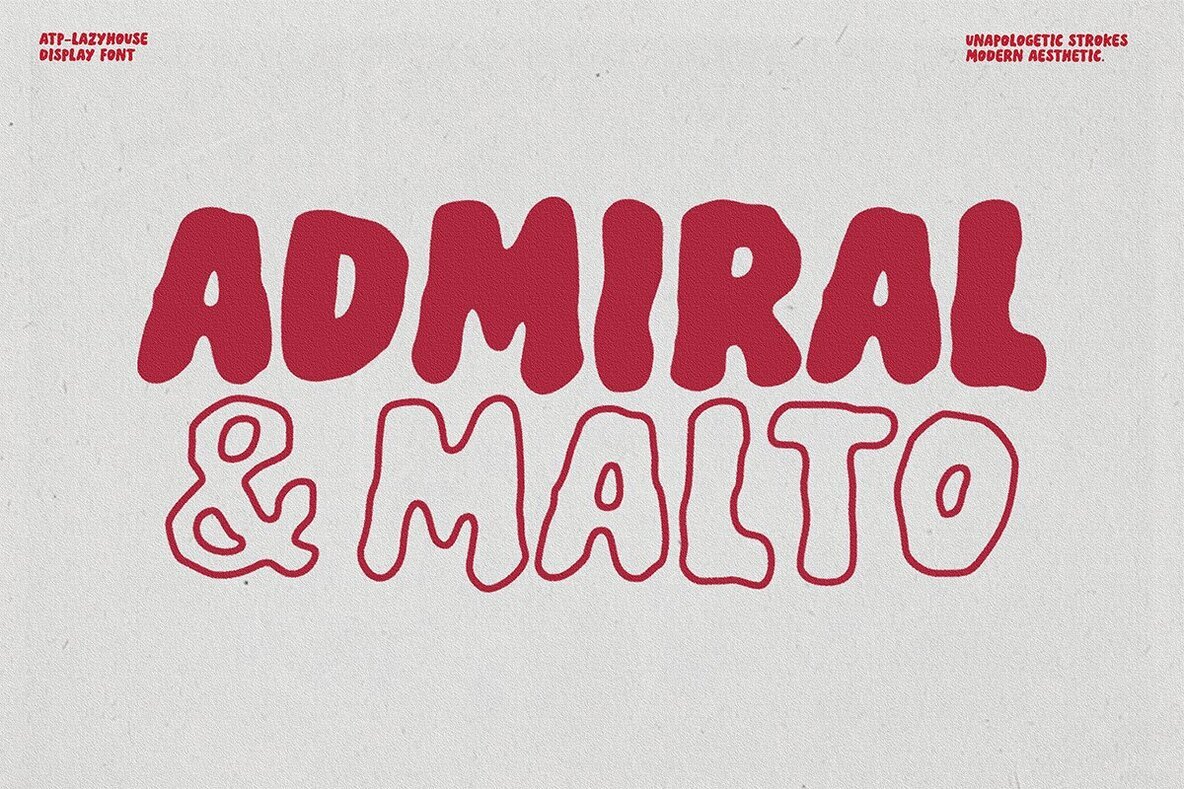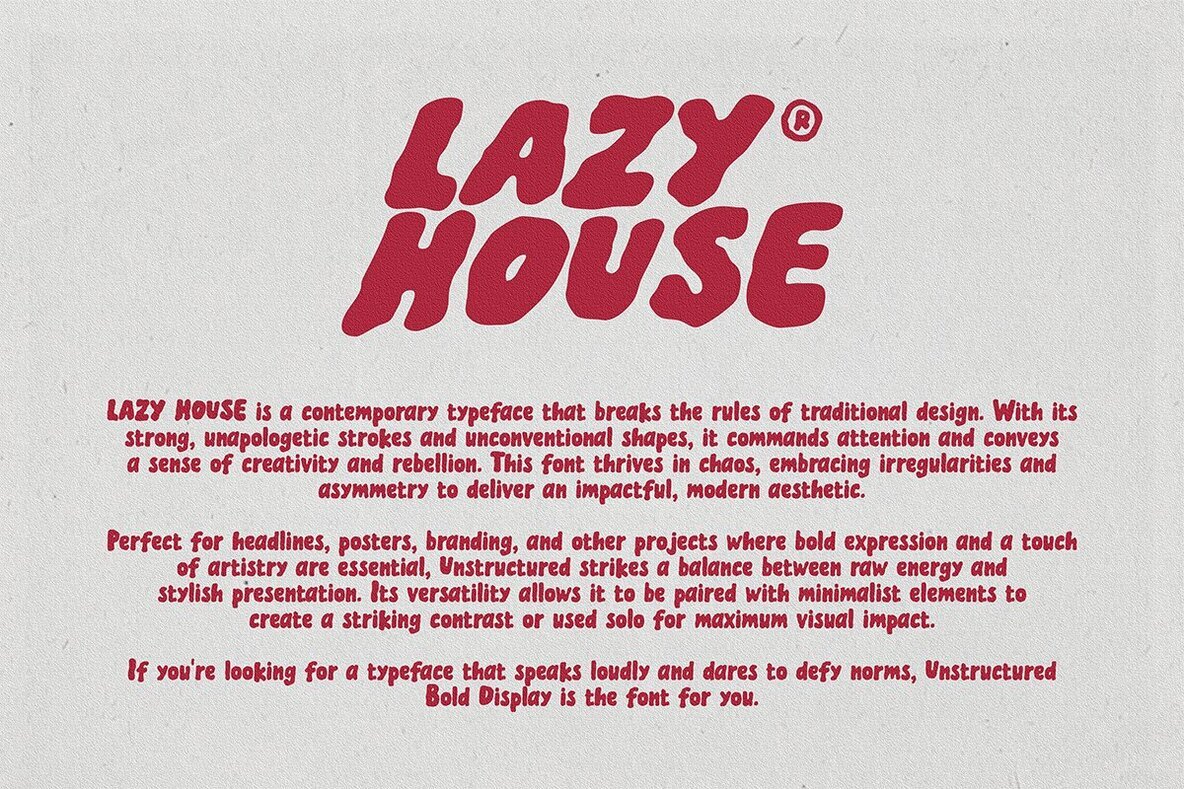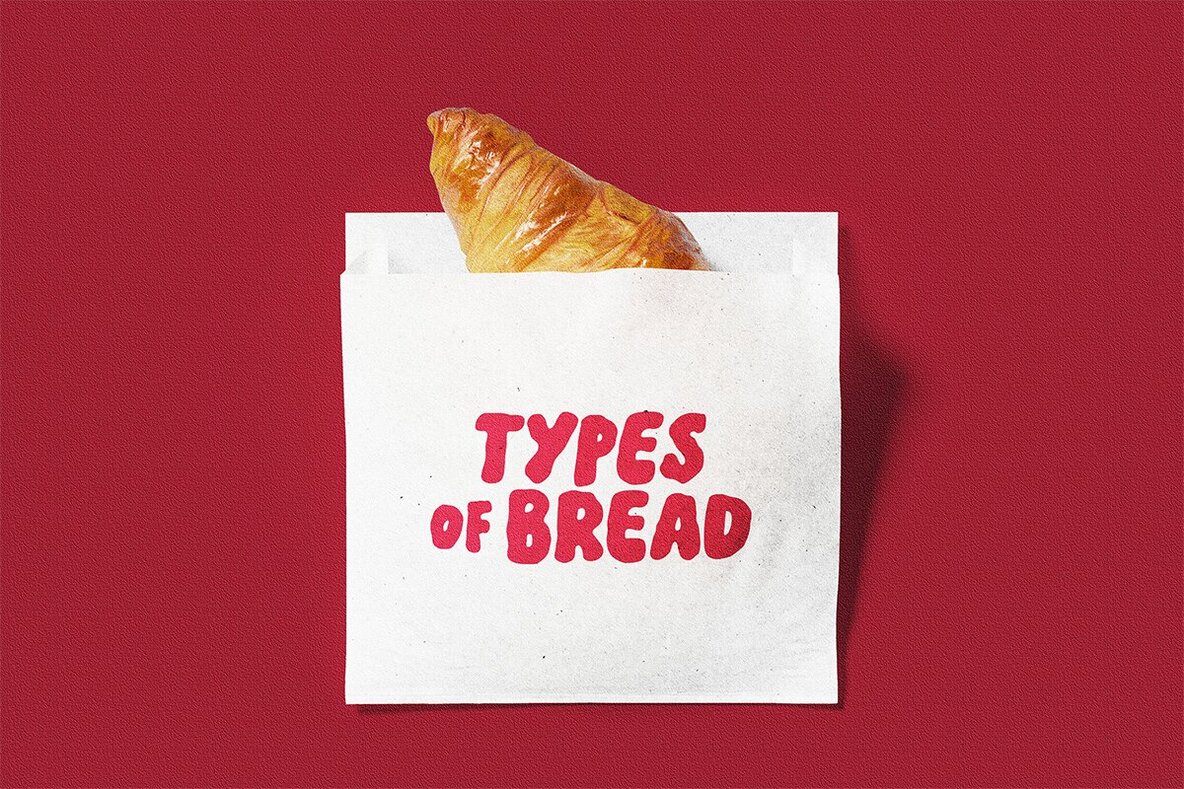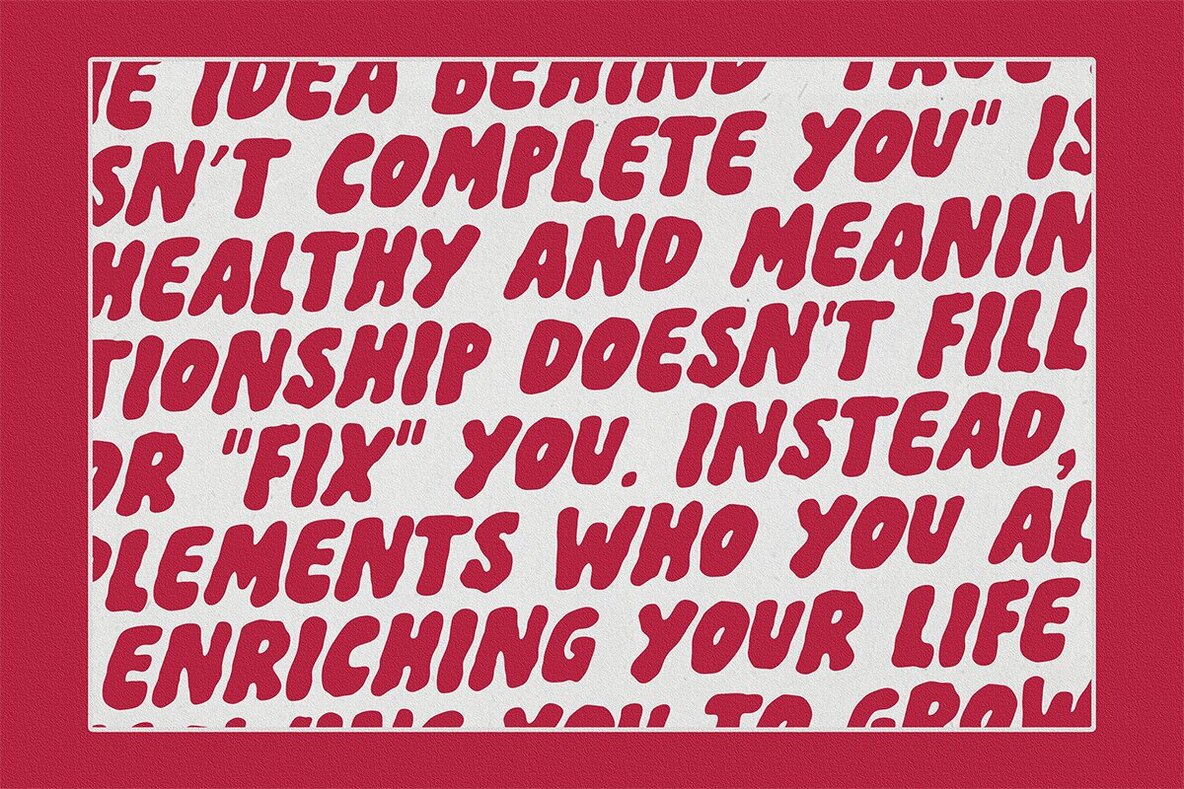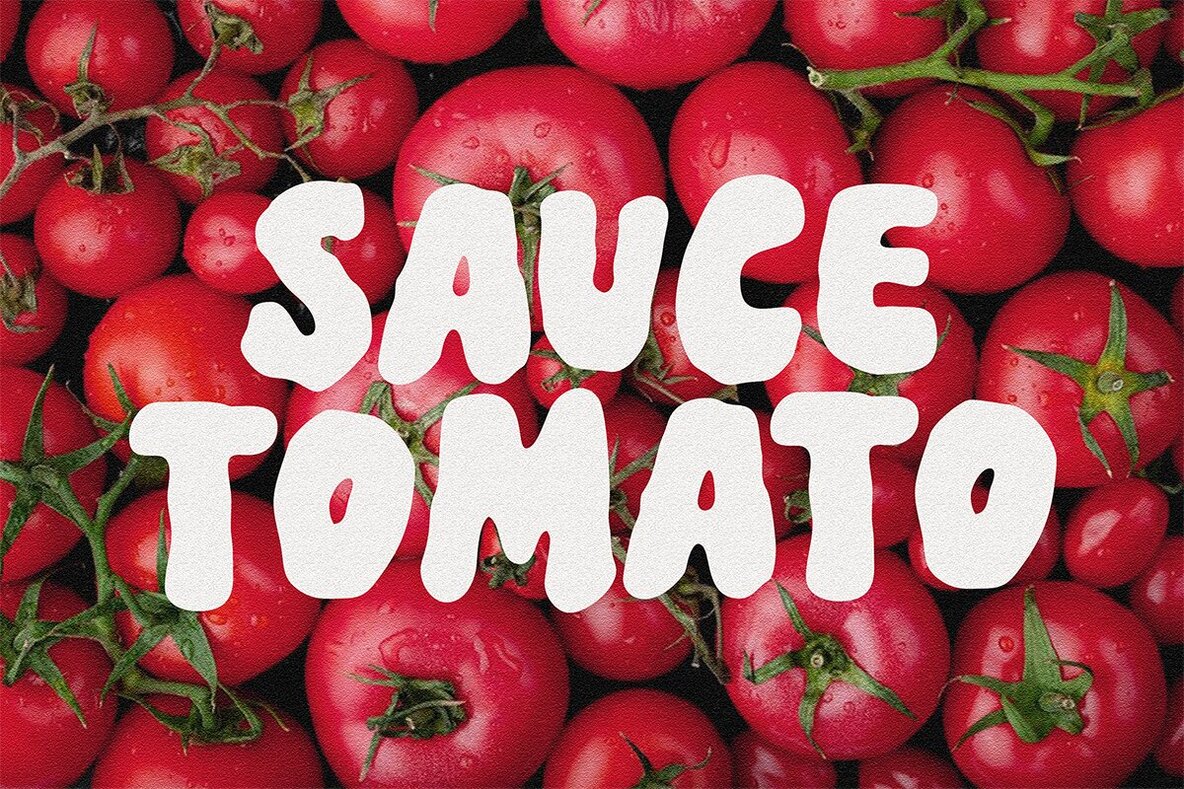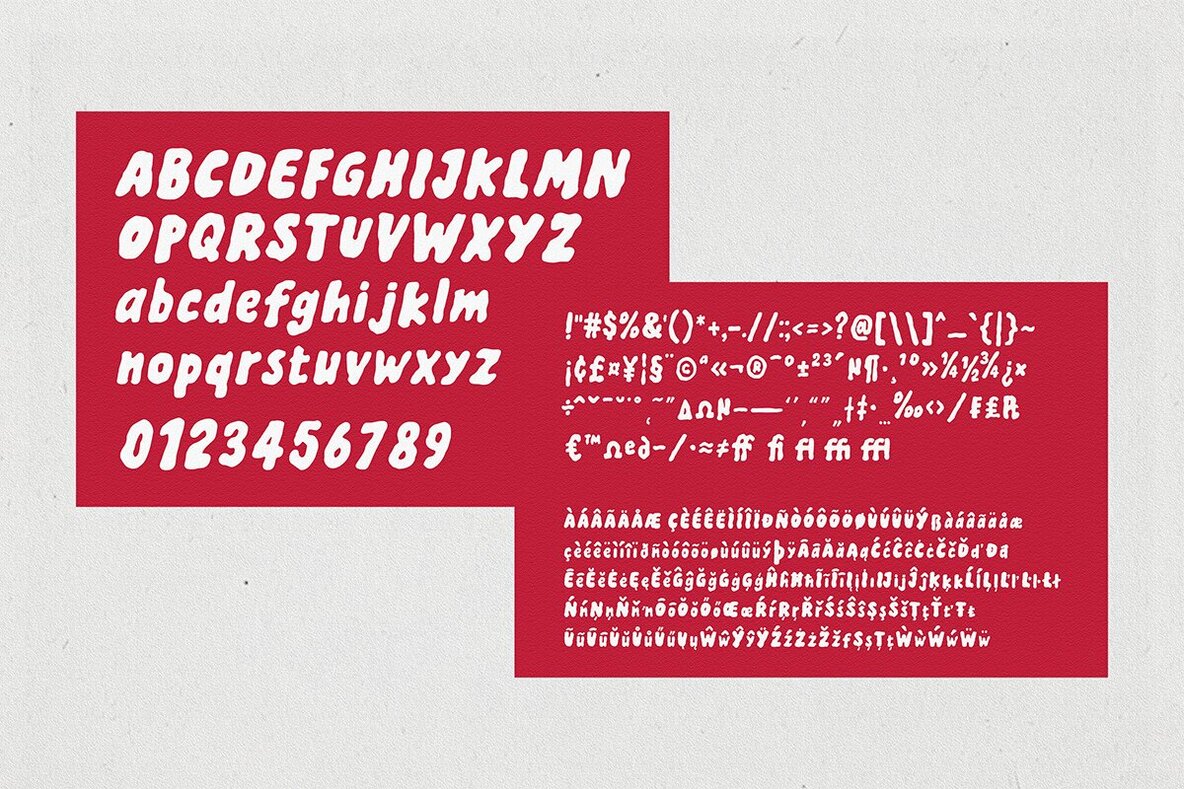
Lazy House Font
ATP Lazy House Regular
LAZY HOUSE is a Unstructured Display Font with a Bold Style is a typeface that exudes confidence and creativity. Combining an unorthodox design with a striking bold weight, this font is built to capture attention and make a strong visual impact. Its irregular forms and dynamic edges create a sense of movement and modernity, making it perfect for projects that demand a statement—whether in headlines, posters, branding, or artistic compositions. The bold style amplifies its commanding presence, ensuring your message is delivered with clarity and flair. Whether you're crafting a contemporary art piece or creating eye-catching visuals, Unstructured Display Font offers the perfect balance of raw creativity and visual appeal.